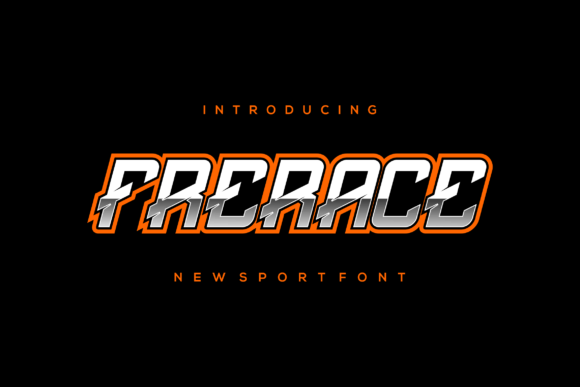
Welcome to the world of Frerace Font, a stunning display font that exudes a rare blend of professionalism, modernity, and sophistication. Created by the ingenious mind of yohanes mulat argo, Frerace Font is not just a font; it's an experience. It's a journey into the realm of typography, where your words transform into captivating expressions of your thoughts and ideas. With its sleek lines, sharp edges, and a touch of elegance, Frerace Font is the perfect choice for crafting resumes that stand out, presentations that captivate, and designs that leave a lasting impression.
Embrace the power of Frerace Font and unlock the gateway to a world of boundless creativity. Let your imagination soar as you craft stunning headlines that demand attention, captivating logos that resonate with your brand, and social media graphics that ignite engagement. The possibilities are endless with Frerace Font, your trusty companion in the realm of visual communication.
Whether you're a seasoned designer seeking to elevate your work or a novice just starting your design journey, Frerace Font is your perfect companion. Its user-friendly design makes it accessible to all, ensuring that your creative vision comes to life effortlessly.
Don't settle for ordinary fonts that blend into the background. Choose Frerace Font, the font that commands attention, ignites emotions, and leaves an indelible mark on your audience. Experience the transformative power of typography with Frerace Font today and elevate your designs to new heights of brilliance!